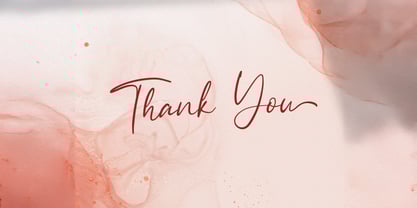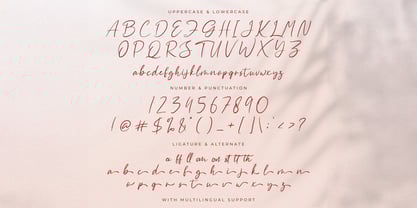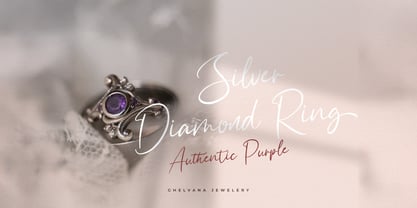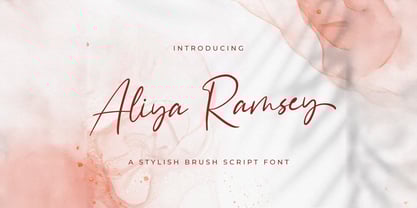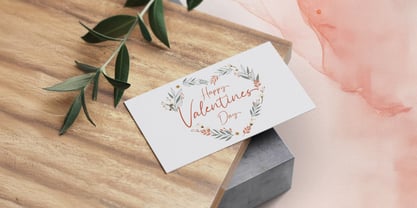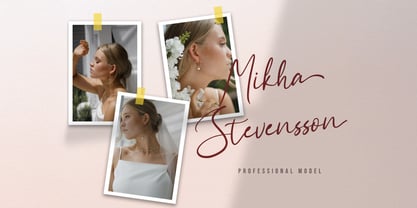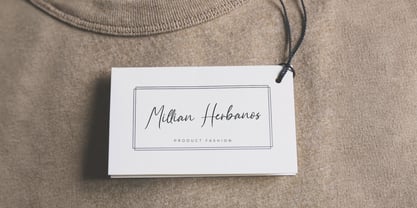
Aliya Ramsey
by Stringlabs Creative Studio
The Aliya Ramsey Font Family was designed by Virgiawan Listanto and published by Stringlabs Creative Studio. Aliya Ramsey contains 1 styles. More about this family
Aliya Ramsey is a graceful handwritten font that captures the beauty of natural writing with a modern, feminine twist. With its smooth lines, delicate curves, and flowing rhythm, this font adds warmth and elegance to any design. Perfect for branding, wedding invitations, social media posts, and heartfelt quotes, Aliya Ramsey brings a personal and polished touch to every project.
Designers: Virgiawan Listanto
Foundry: Stringlabs Creative Studio